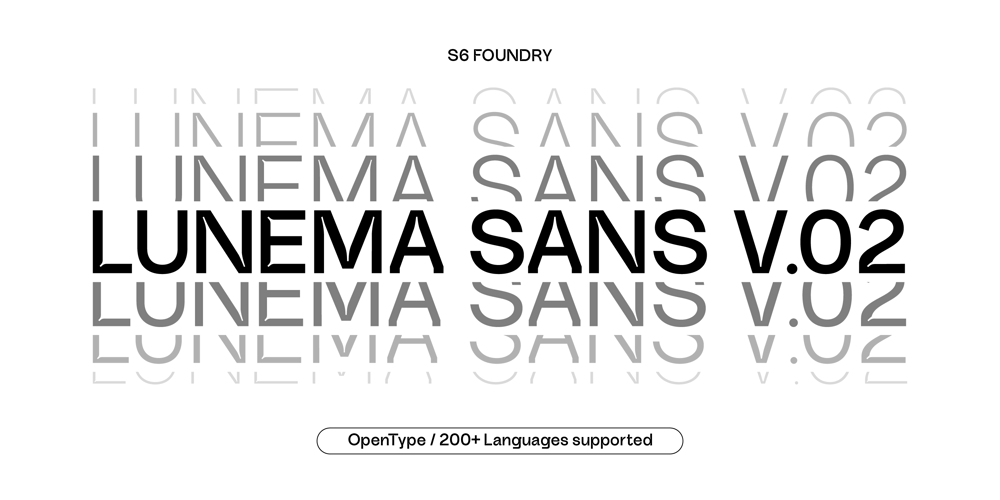
Lunema Sans v.02 Font Family was designed by Paul Henry Robb and published by S6 Foundry. Lunema Sans v.02 contains 14 styles and family package options. Lunema v.02 is a highly stylized contemporary Opentype sans serif typeface with strong geometric contrasts. Due to the distinct deep ink traps, the font is highly legible in smaller point sizes. All styles have an extended Latin glyph set with alternatives and ligatures. Lunema perfectly suits headlines, large-format prints, brand identities, social media, advertising, editorial design, posters, magazines, logos, headings, and more. The Lunema family includes seven weights, with their relative Italics.